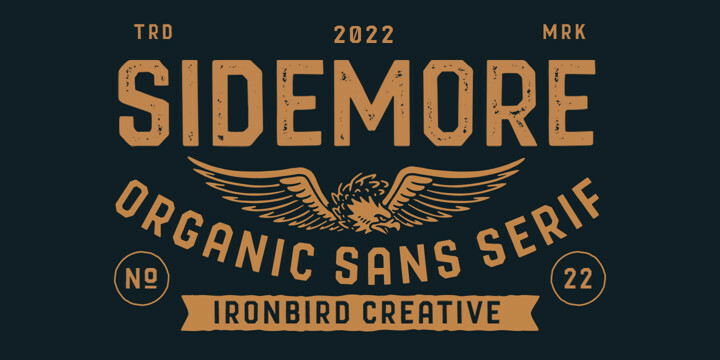
Sidemore Font Family
Sidemore Font FamilySidemore is a organic sans serif inspired by vintage type with handdrawn feel. This typefaces is perfect for people looking for vintage aesthetic and suitable for any graphic designs such as branding materials, t-shirt, print, logo, poster, quotes. Also support multilingual, number and symbol, and already PUA Encoded.